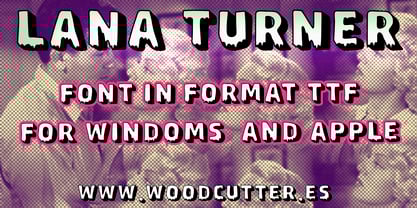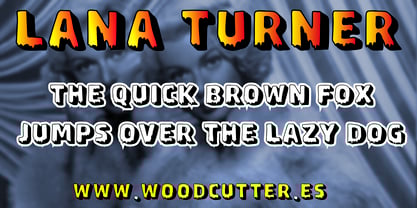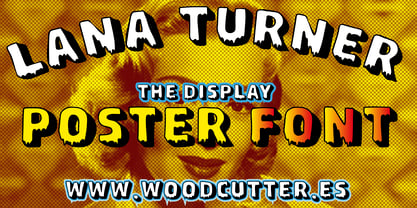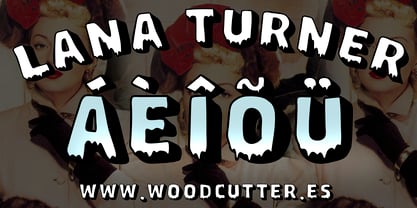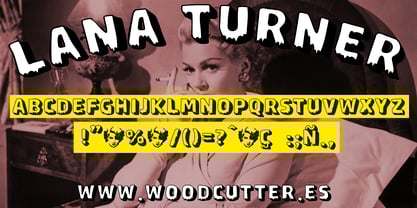
Lana Turner
by Woodcutter
The Lana Turner Font Family was designed by Jordi Manero and published by Woodcutter. Lana Turner contains 1 styles. More about this family
"Lana Turner" is an uppercase font with accents, featuring hollow letters that appear to melt like ice. Its design includes shadows cast to the right, adding dramatic and eye-catching visual depth. Perfect for movie posters, especially for genres like drama or mystery, this typeface conveys a classic and theatrical aesthetic with a unique touch of fragility. "Lana Turner" evokes elegance and nostalgia, making it the perfect choice for projects seeking a cinematic style that is both striking and visually rich.